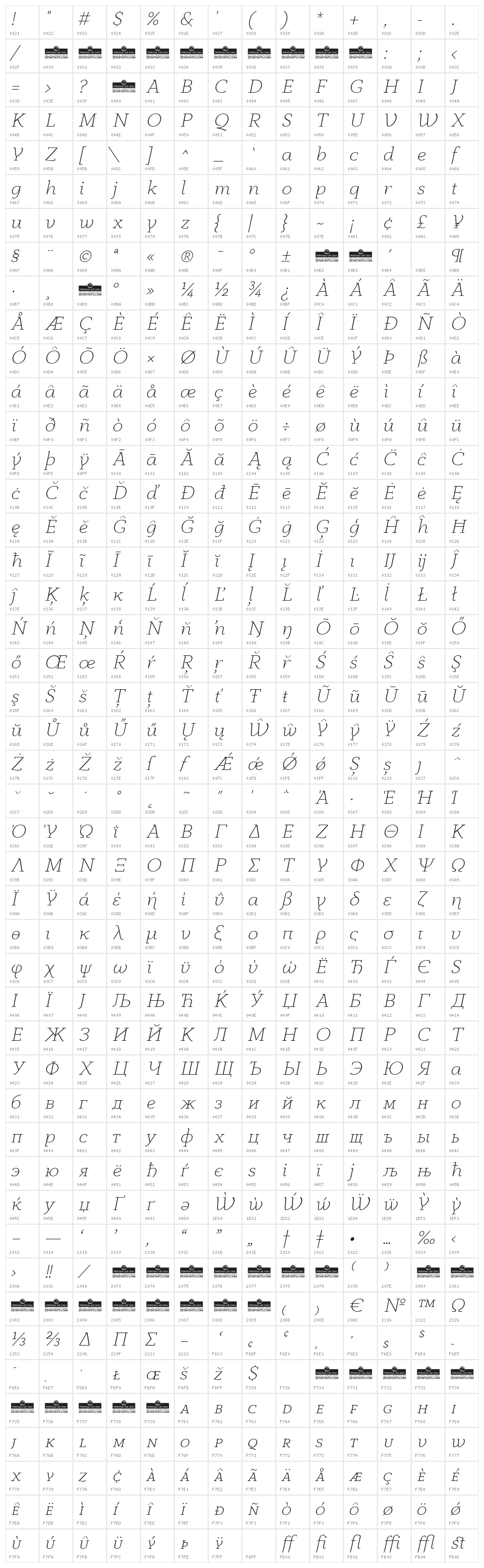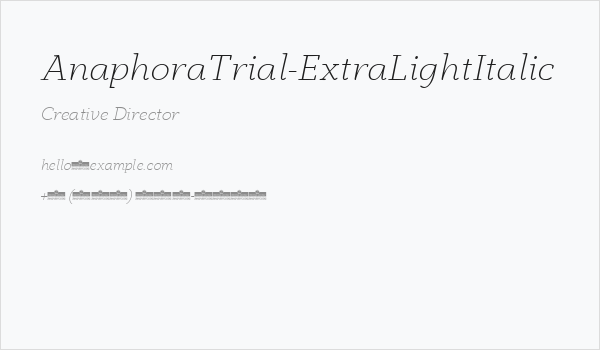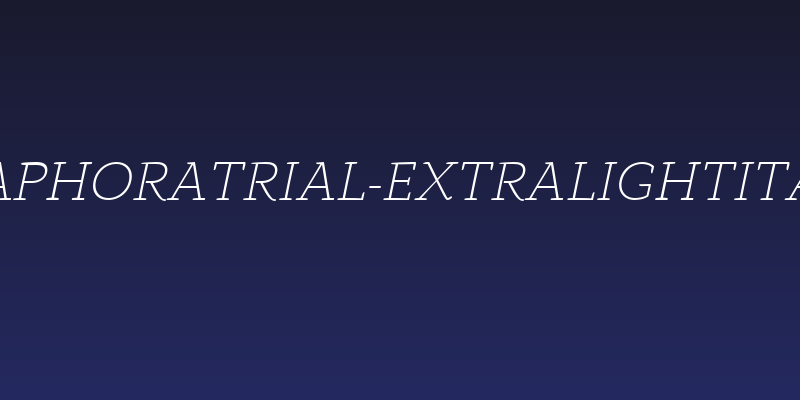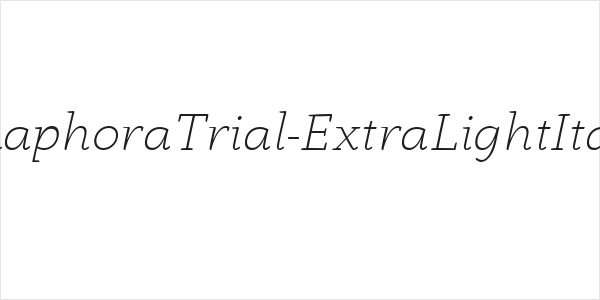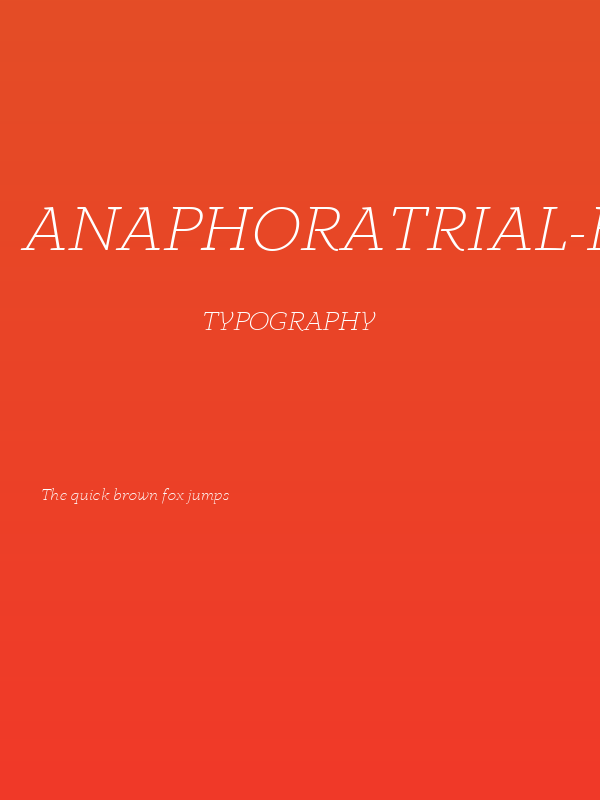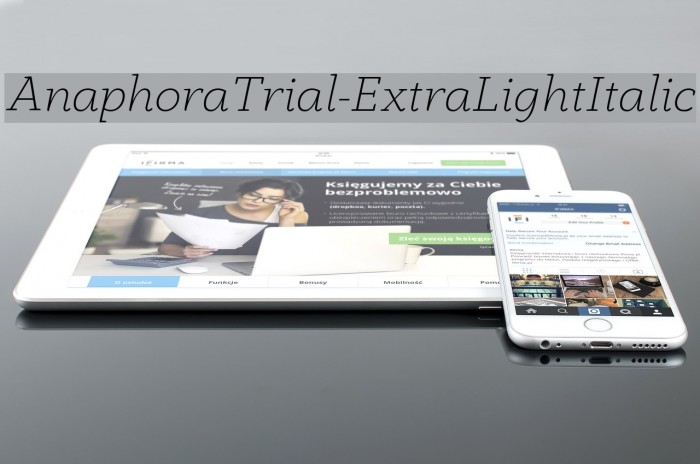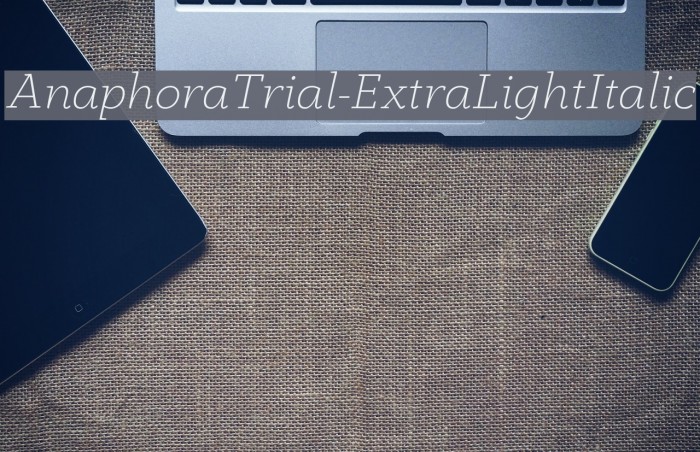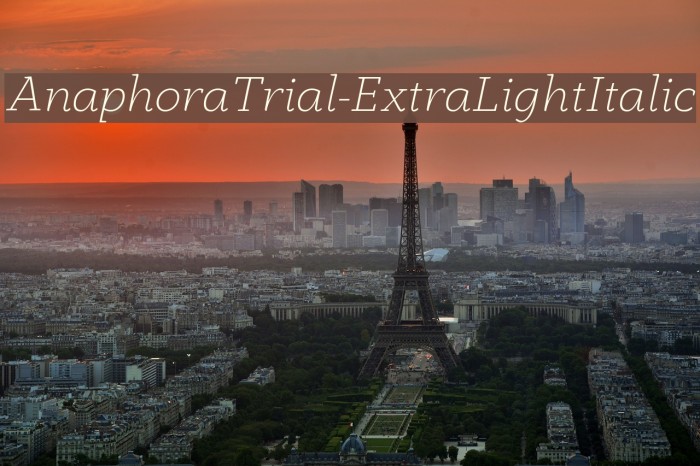
AnaphoraTrial-ExtraLightItalic Font
✎ Serif
AnaphoraTrial-ExtraLightItalic Description
This elegant typeface features a refined and sophisticated style with a delicate touch. The characters are crafted with a gentle slant, giving them an italicized appearance that enhances the graceful flow of the text. The strokes are thin and consistent, contributing to an overall light and airy feel. The font maintains a classic serif structure, with subtle curves and sharp edges that add to its timeless appeal. The spacing between characters is balanced, ensuring readability while maintaining an elegant aesthetic. This font is ideal for projects that require a touch of sophistication and elegance.
| Overall Style | Classic |
| Use Case | Headlines, Body text, Logos |
| Proposed Projects | Ideal for wedding invitations, luxury branding, elegant editorial layouts, and sophisticated web design. |